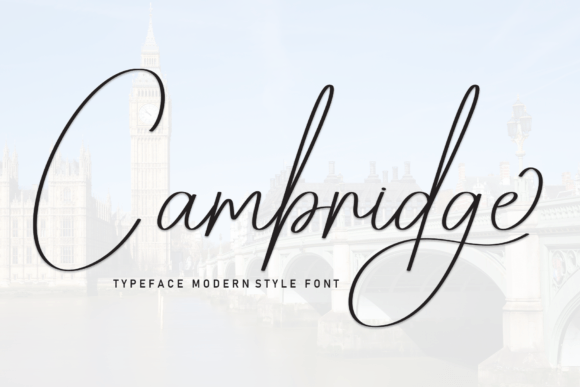
Journey into the world of typography with Cambridge Font, a script font family designed to ignite your creativity and elevate your designs. Experience the allure of beautifully crafted letters that flow effortlessly, adding a touch of elegance and charm to your projects.
Indulge in the captivating allure of Cambridge Font, a cursive handwritten font that exudes sweetness and sophistication. Its gentle strokes and delicate curves bring a sense of joy and romance to any design, leaving a lasting impression.
Immerse yourself in the versatility of Cambridge Font. Its carefully crafted characters seamlessly adapt to a myriad of design concepts, from branding and logos to wedding invitations and fashion lookbooks. Let Cambridge Font be your creative companion, enhancing your projects with a touch of timeless beauty.
Unleash your creativity with Cambridge Font, the perfect choice for those seeking a font that embodies elegance, playfulness, and sophistication. Whether you're a seasoned designer or just starting your creative journey, Cambridge Font will captivate your audience, leaving them mesmerized by your designs.
Unlock the boundless potential of Cambridge Font today. Let its enchanting characters weave their magic into your projects, transforming them into works of art that resonate with your audience. Embrace the beauty of Cambridge Font and embark on a creative journey like no other.